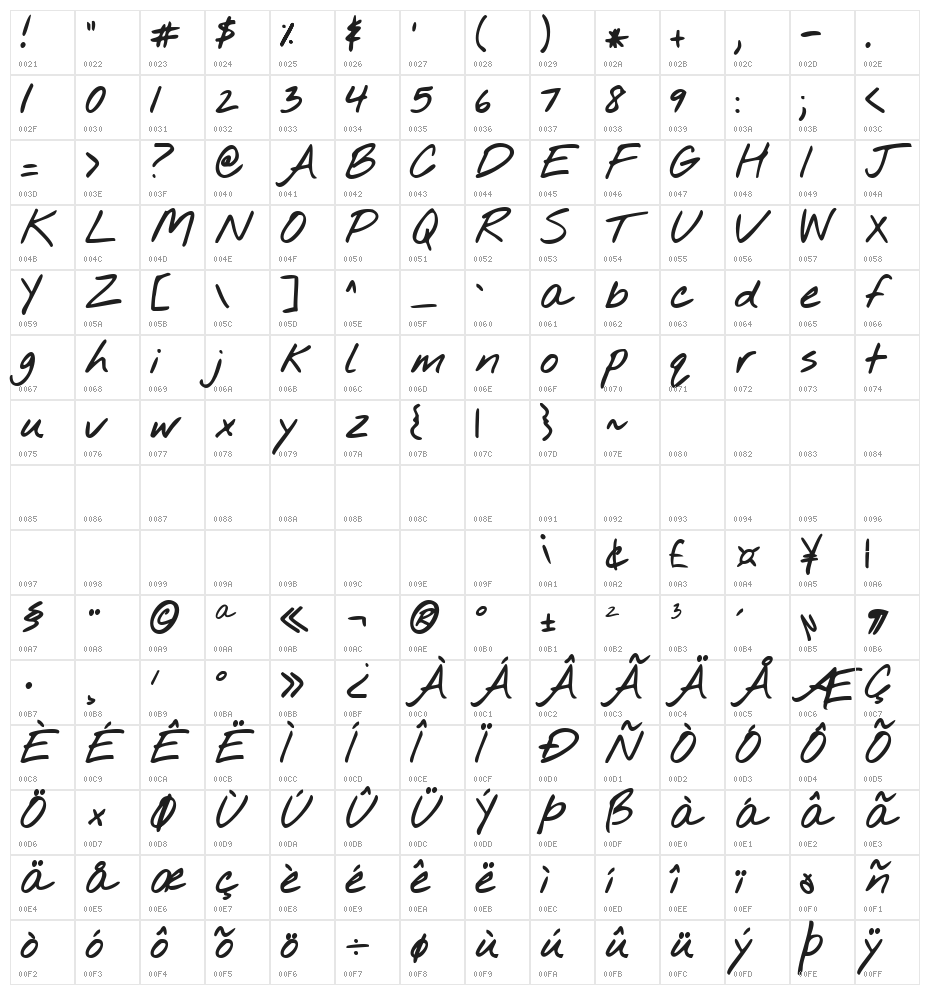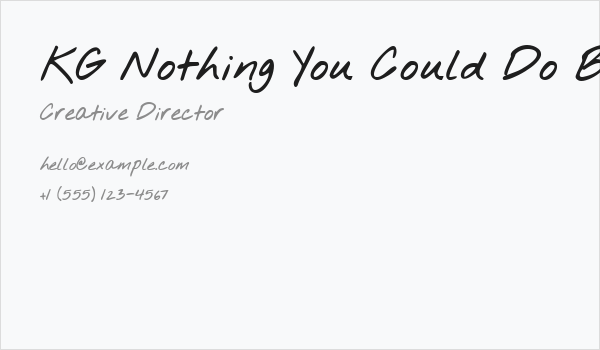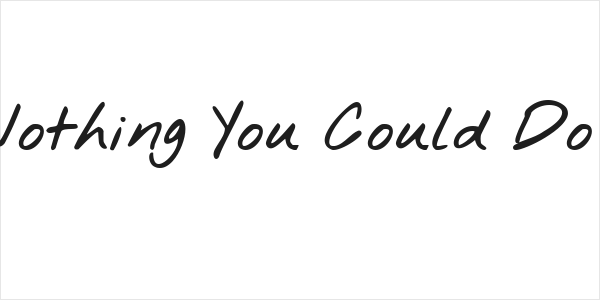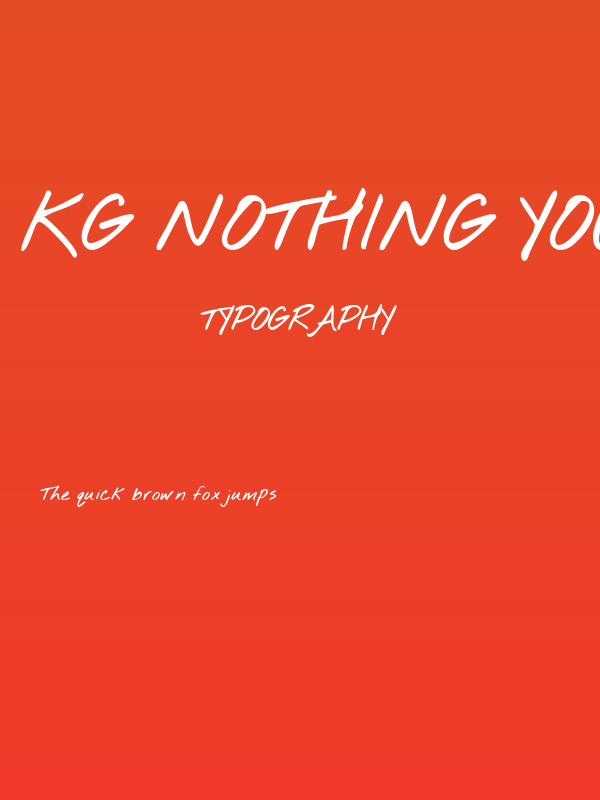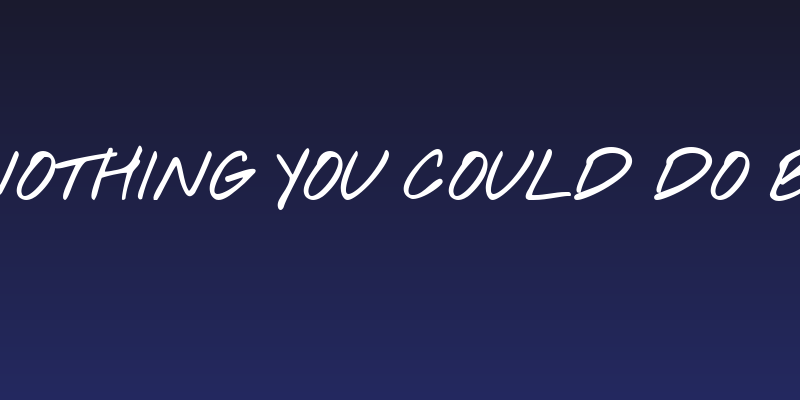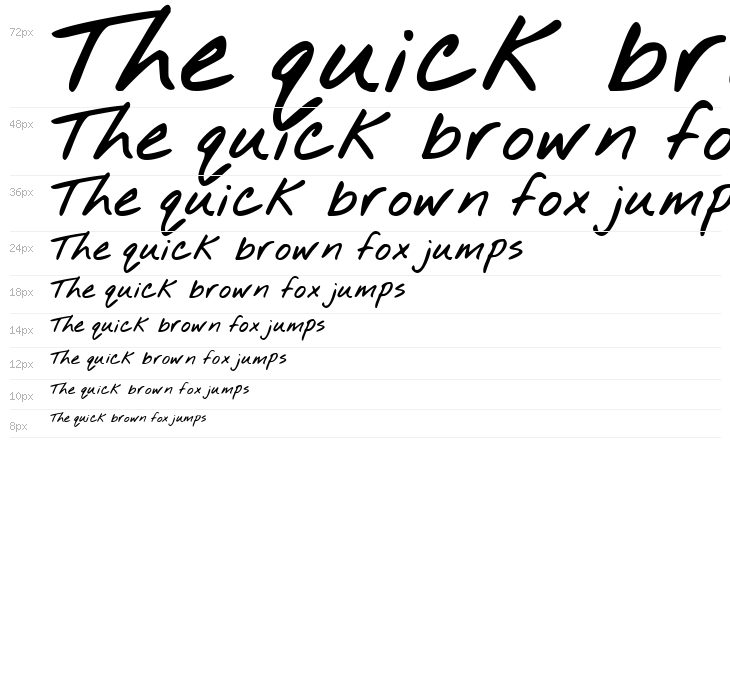
KG Nothing You Could Do Bold Font
KG Nothing You Could Do Bold Description
This font exudes a casual and handwritten style, characterized by its fluid and natural strokes that mimic the look of a personal script. The letters are slightly slanted, adding a dynamic and informal touch. Each character is distinct, with a playful yet legible appearance, making it suitable for conveying a friendly and approachable tone. The uppercase and lowercase letters maintain a consistent style, while the numbers and special characters integrate seamlessly, ensuring versatility across various uses.
| Proposed Projects | Ideal for personal invitations, greeting cards, casual branding, and social media graphics. |